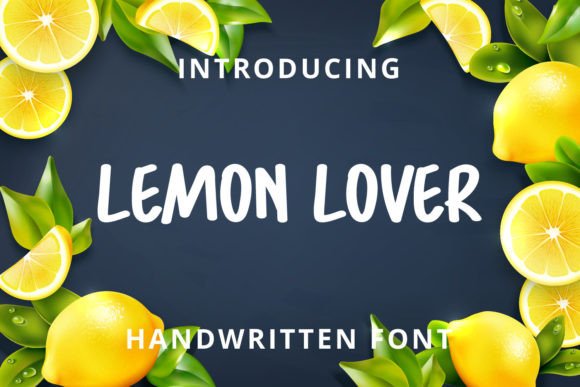
Behold Lemon Lover, a vibrant and lively script font family tailored to elevate your email business to new heights. This font is the epitome of playful charm and whimsical sophistication, inviting your audience into a delightful visual journey. Each letter, meticulously crafted by the artisans at Planetz studio, emanates a heartwarming touch that will leave a lasting impression on your customers.
Lemon Lover's graceful curves and spontaneous strokes add a captivating dimension to your emails, social media posts, and online content. Let your words dance across the screen with an unmistakable personality, engaging your readers and attracting their attention with effortless allure. This font is your secret weapon for crafting emails that ignite curiosity, drive engagement, and convert leads into loyal customers.
With Lemon Lover, you'll discover a symphony of design possibilities. Whether you're crafting eye-catching headers, captivating body text, or personalized graphics, this font adapts seamlessly to your creative vision. Its friendly and approachable demeanor makes it perfect for businesses seeking to connect with their audience on a deeper level.
Embrace Lemon Lover and watch your email campaigns blossom into vibrant expressions of your brand identity. This font is more than just a collection of letters; it's an extension of your business, a visual ambassador that speaks volumes about your values and aspirations. It's time to captivate your audience, inspire action, and build lasting relationships that drive your business forward.